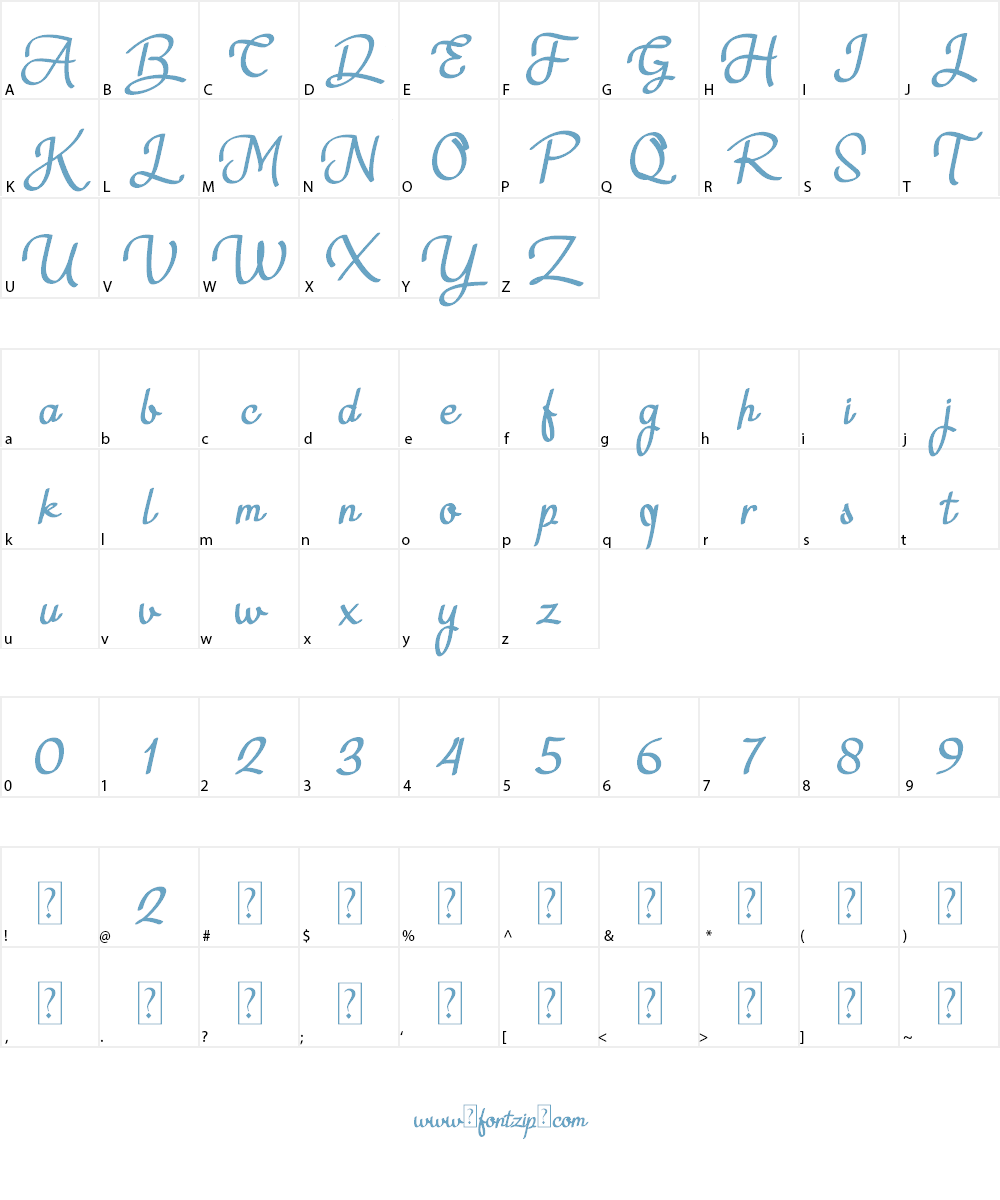
Nagitta is a work of romantic letters from us that is inspired by a love story, this letter looks beautiful and elegant, very suitable to be applied to your project.
Nagitta would perfect for wedding designs, invitation, photography, watermark, social media posts, advertisements, logos & branding, product designs, label, stationery, product packaging, special events or anything that need handwriting taste.